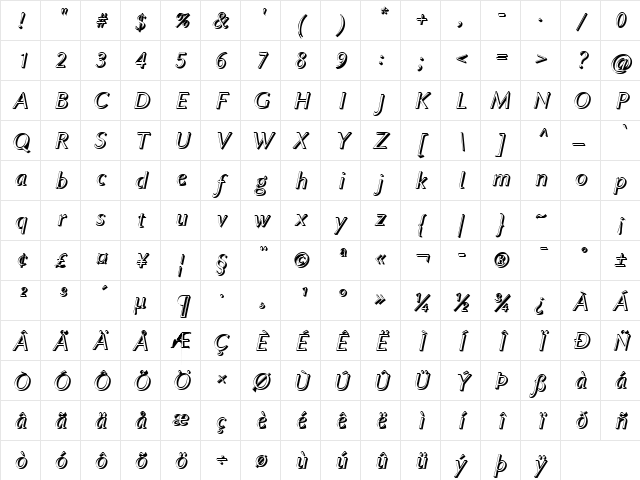
Complete Linux Biolinum Shadow Italic glyph index. Displaying only characters natively supported by Linux Biolinum Shadow Italic font.
Linux Biolinum Shadow is built around its visual character rather than neutral utility - its distinctive forms are designed to make an impression at display sizes. The slanted form adds forward momentum and visual energy.
Font Pairing: Pair with a clean neutral sans-serif for body copy to let Linux Biolinum Shadow's character lead without overwhelming the composition.
Pro Tip: Use Linux Biolinum Shadow exclusively at display sizes - it was designed to be seen, not read at length. Let a neutral companion handle body copy.
Who designed the Linux Biolinum Shadow Italic font?